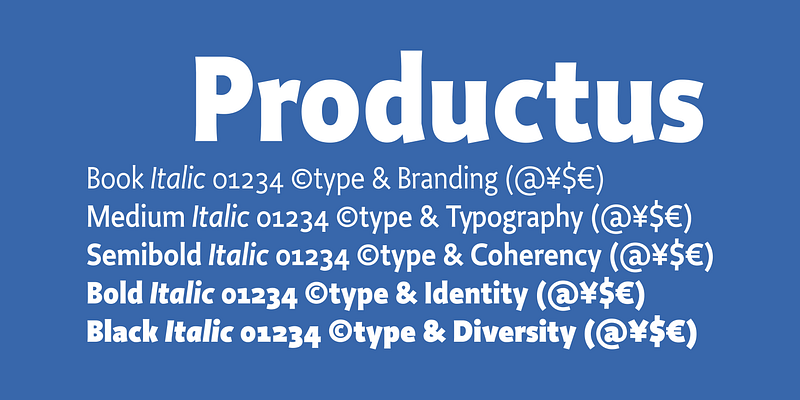
At the turn of the millennium, Petr van Blokland conceived Productus as the humanist sans serif companion to his prizewinning oldstyle Proforma. Van Blokland has shaped the pair of typefaces as an ideal vehicle for distinguished corporate design, capable of styling all imaginable documents. Small text sizes read supremely well in either type. Both offer related distinction for headlines. Each supports the structure of the other. Font Bureau, 2000.
Born in Gouda, the Netherlands, in 1956, Petr van Blokland graduated cum laude from the graphic arts program at the Royal Academy of Fine Arts (KABK) in The Hague in 1980. With his partner Claudia Mens, Van Blokland worked for over thirty-five years as a designer in the studio they cofounded. His output ranged from sketching and model-making to programming in various languages. He specialized in systematic design: corporate identities, form systems, online publications, and tools for type design.
After decades of publishing through Font Bureau, Petr van Blokland cofounded Type Network, where he exclusively releases new typefaces under the TYPETR label. He plans to publish new families on a regular basis and will also write the occasional educational post about graphic design, typography in general, and how to use type in particular.